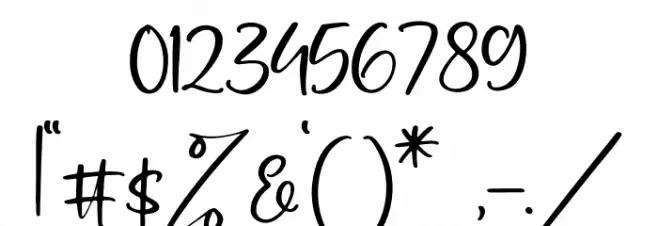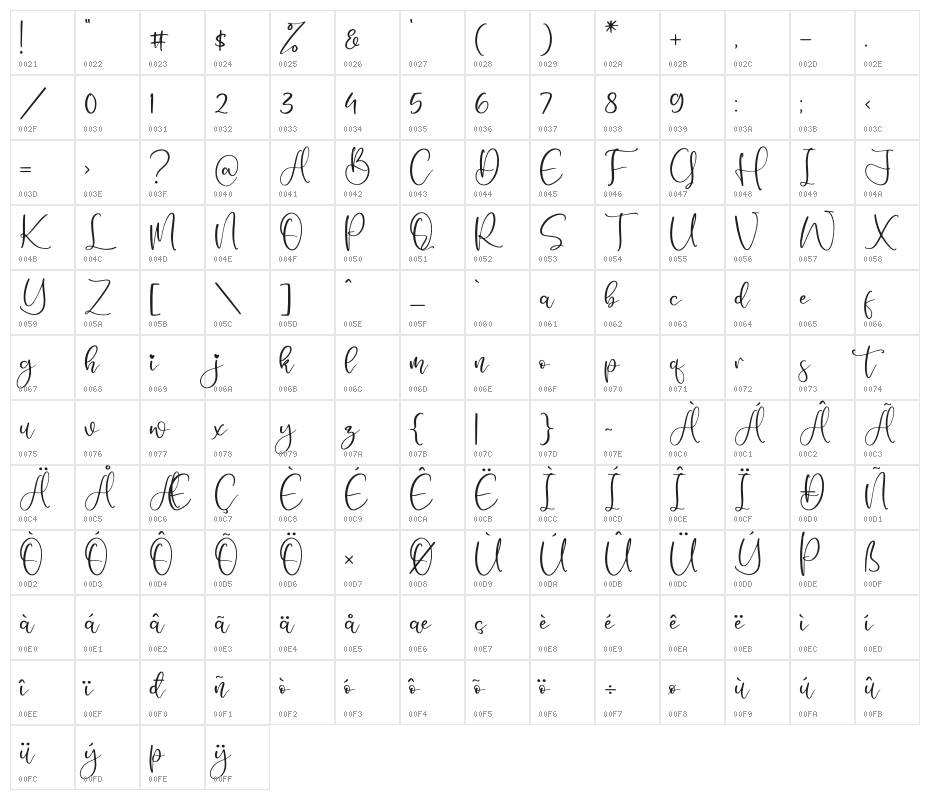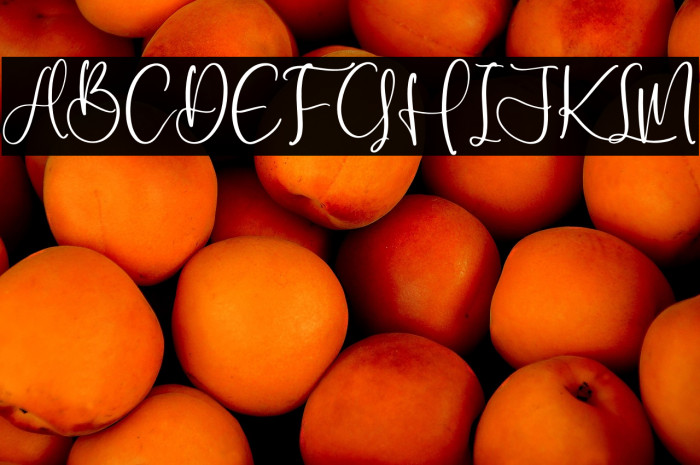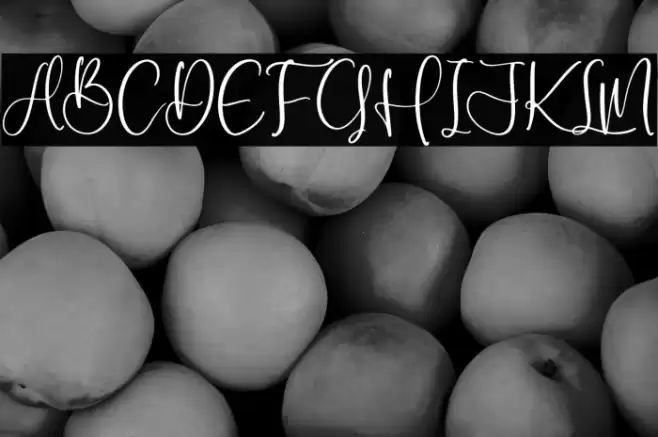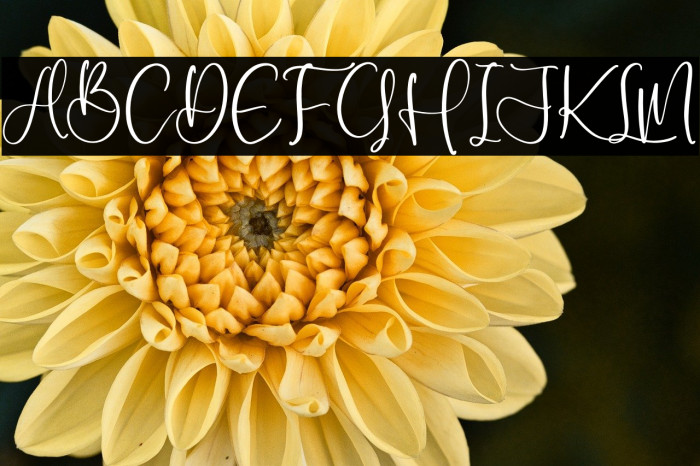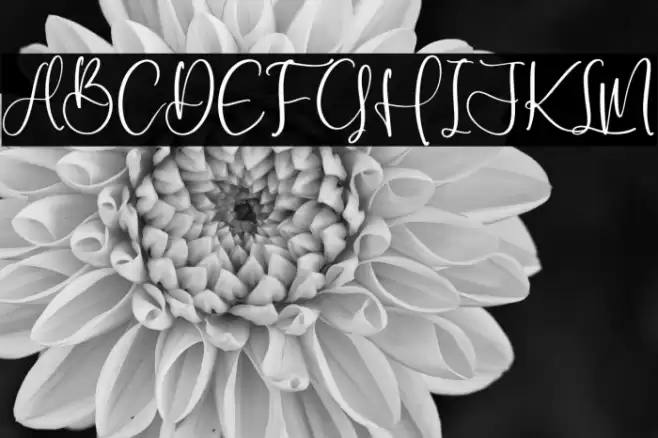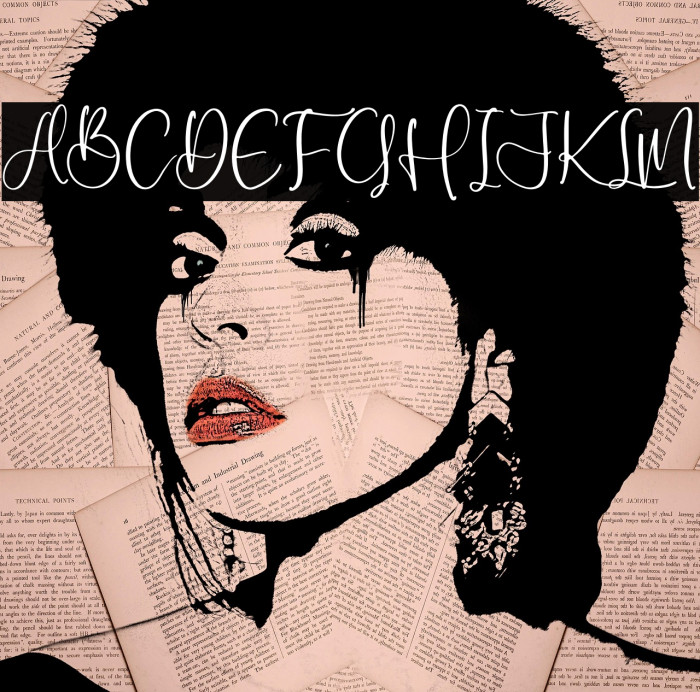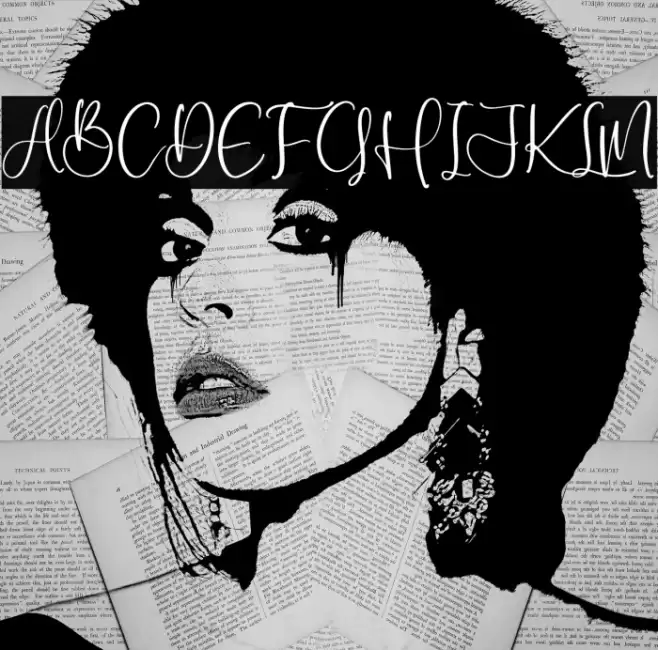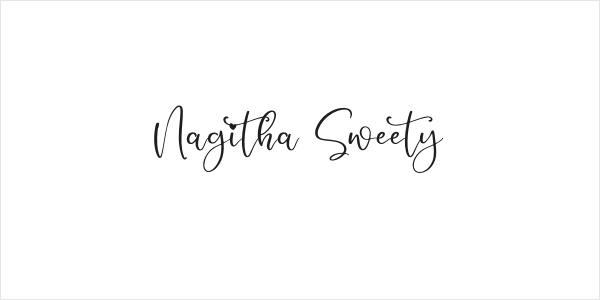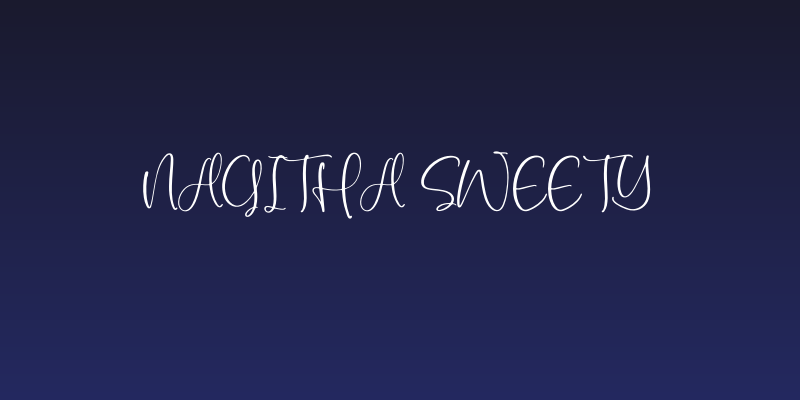
Nagitha Sweety Font
Nagitha Sweety Description
This font features a playful and whimsical script style, characterized by its flowing, cursive letters with a handwritten feel. The uppercase letters are tall and elegant, with smooth curves and loops, while the lowercase letters are more compact and feature charming embellishments like heart shapes on some characters. The numerals are consistent with the script style, maintaining a cohesive look. Special characters are creatively integrated, adding to the font's overall charm. This font is perfect for projects that require a personal, friendly touch.
| Proposed Projects | Ideal for wedding invitations, greeting cards, personal branding, and playful logos. |